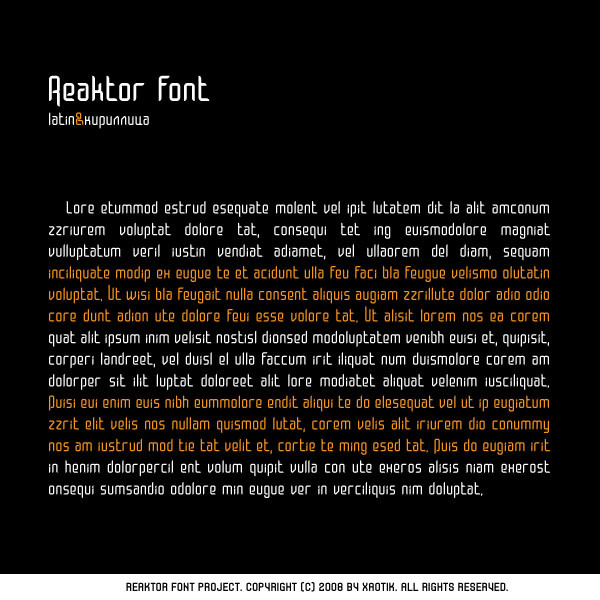
maybe unfinished, but it`s full!!! + cyrillic glyphs includedlookin` forward for critics& comments
Fantastic..Yah it is very simple but it is very attractive..
Awesome! I've been hunting for some sharp Cyrillic fonts. I can't wait to try this on something!
This is an absolutely gorgeous font!!
I really like the design you have here, soft curves and playing with as few lines as possible. It reminds me of the racing game Wipeout. They had crazy graphic designers working on that game. The minimalistic approach is something I'm growing more and more fond of. Great work!
Just as an idea, it'd be cool if you made a more distracting/unique and a more normal/readable version